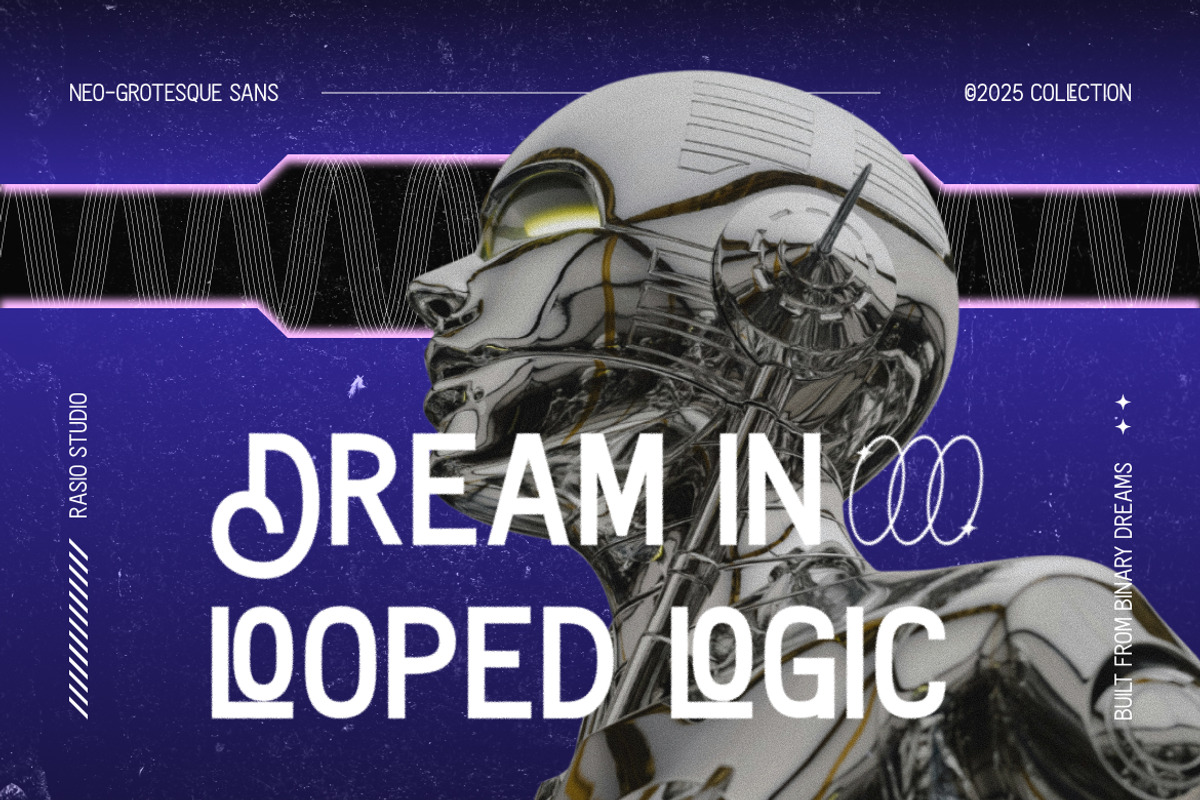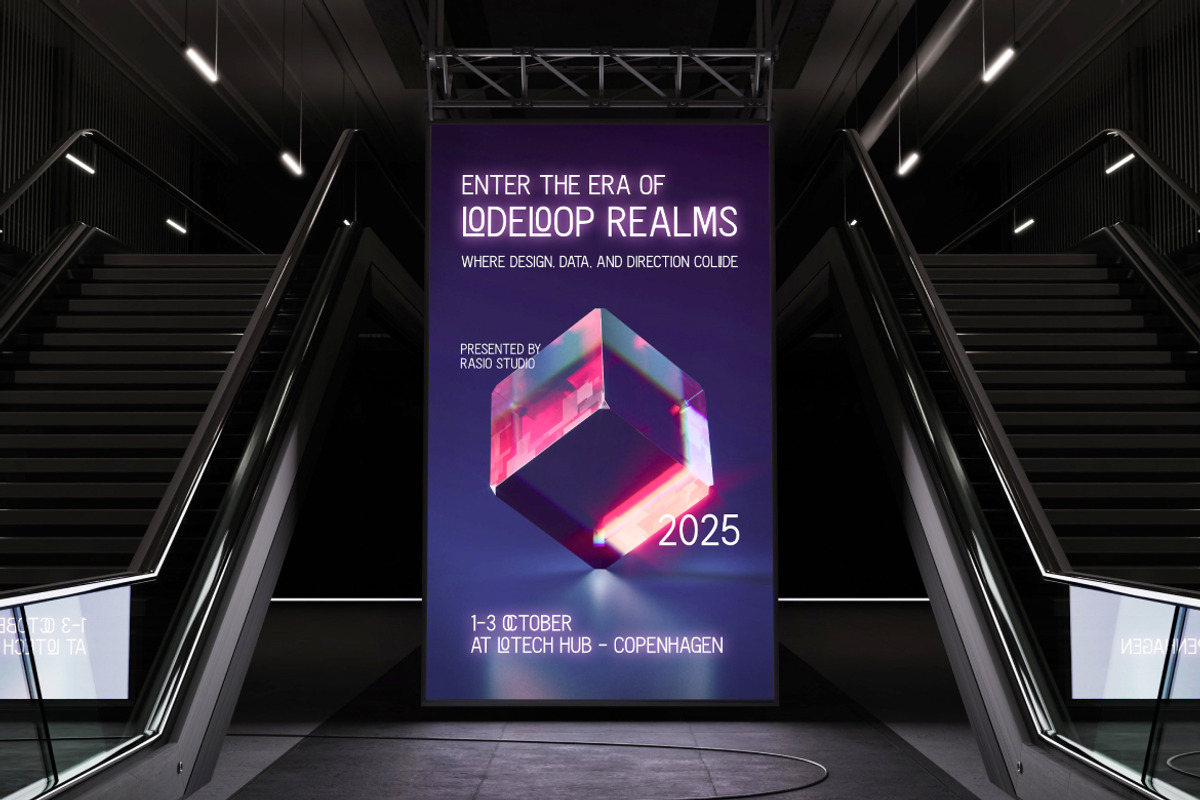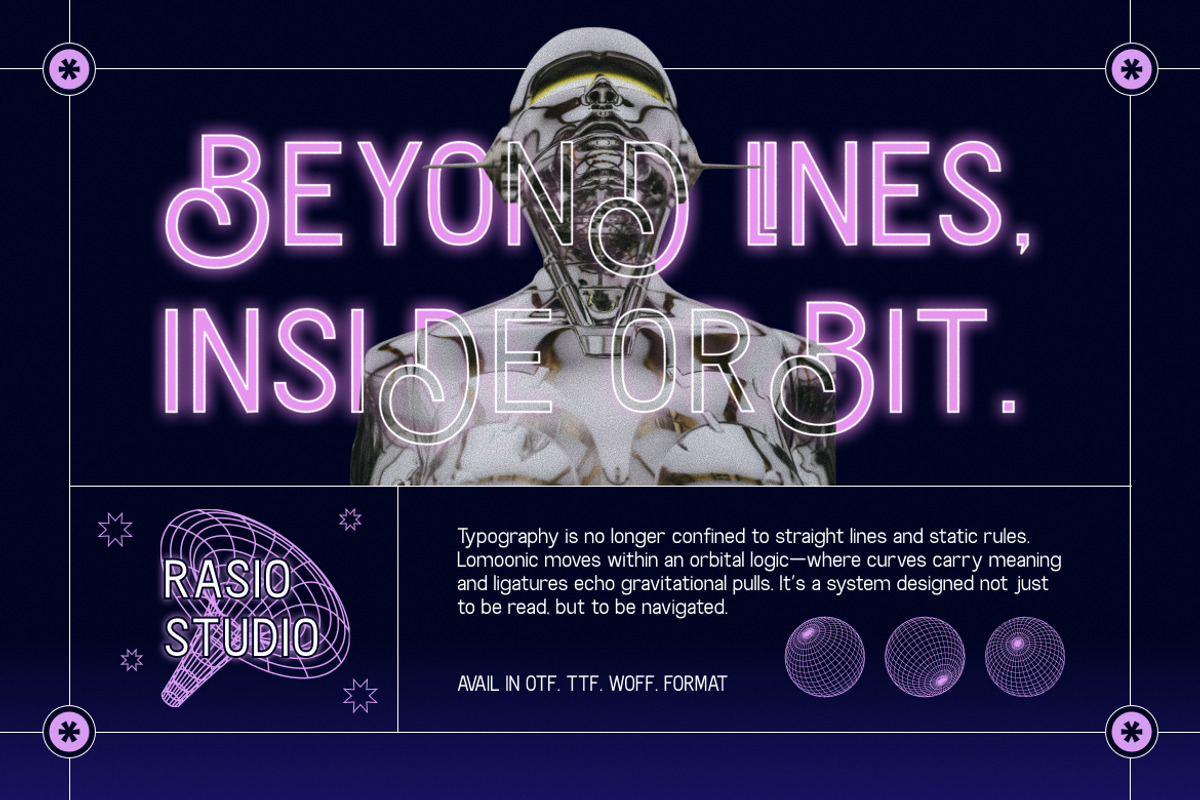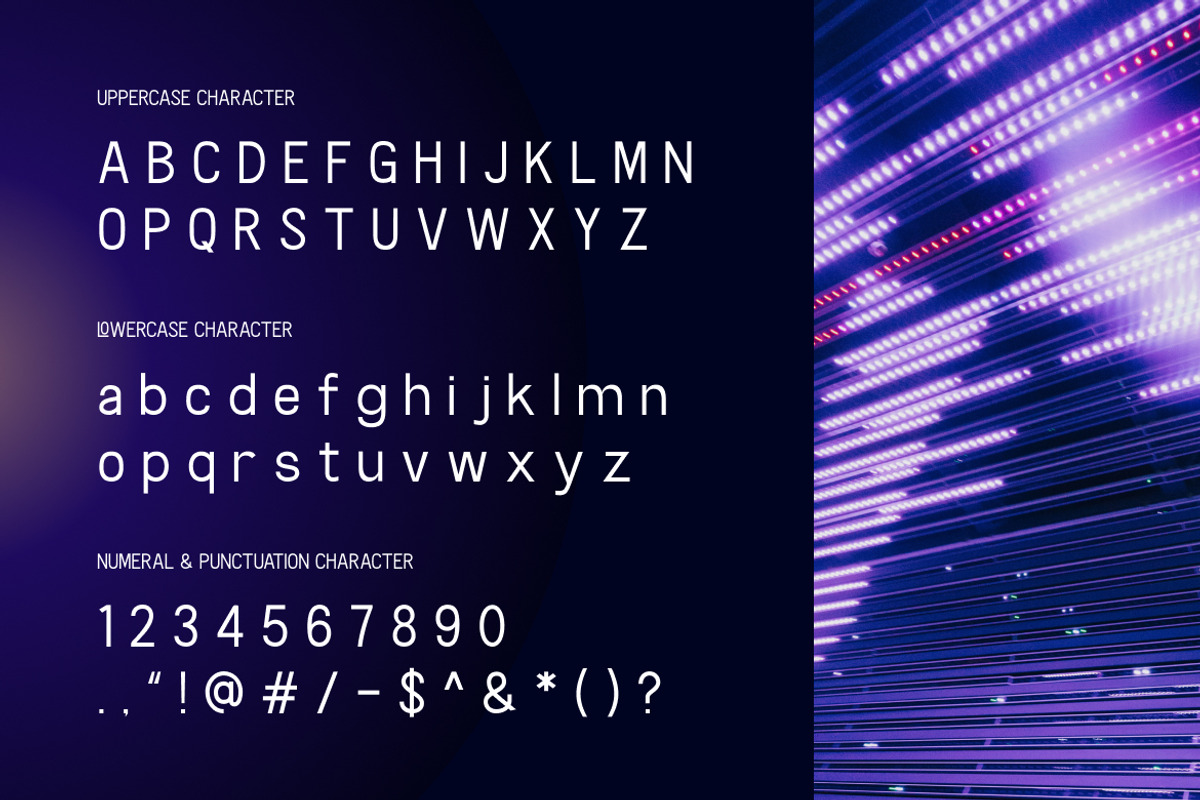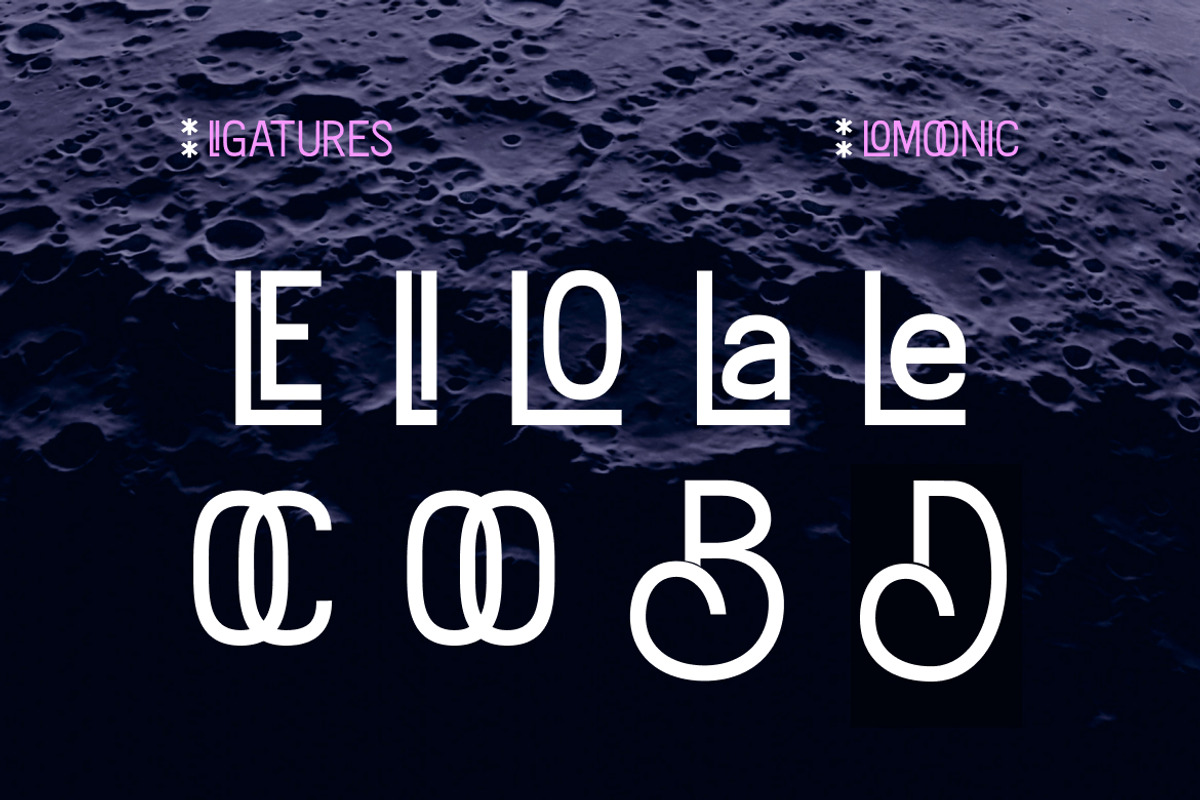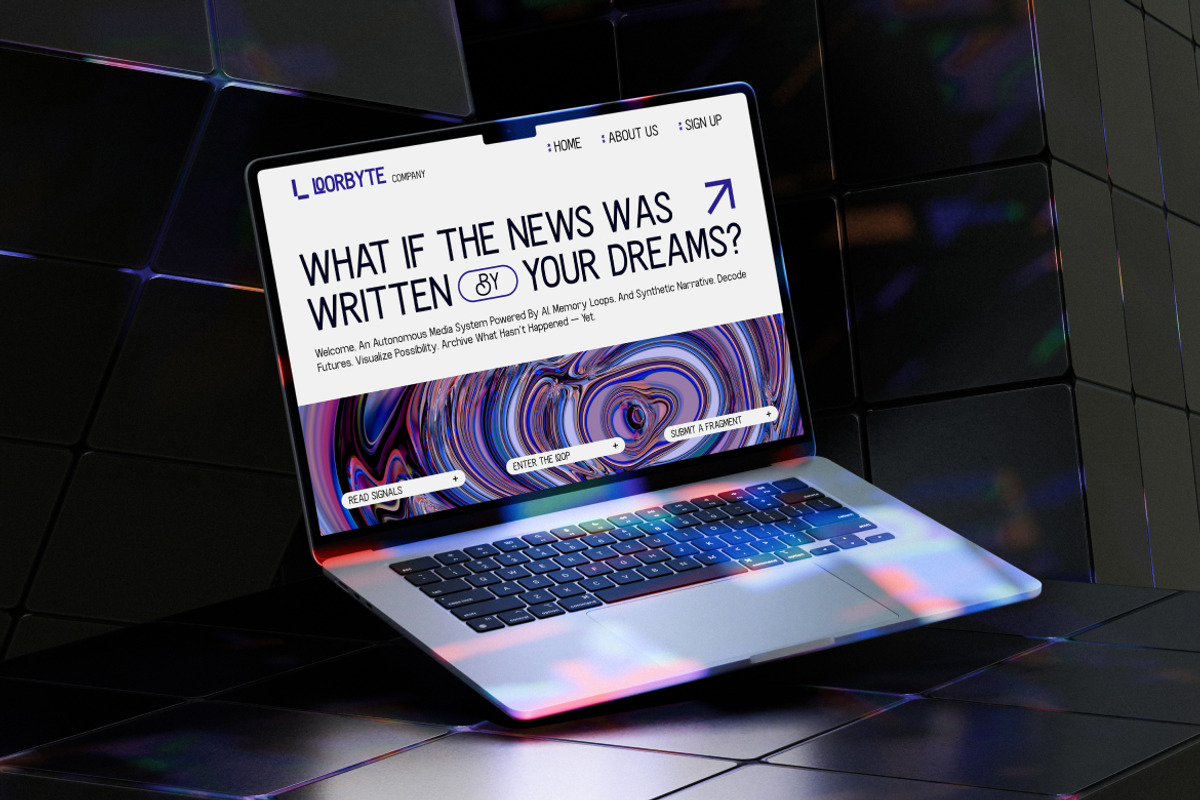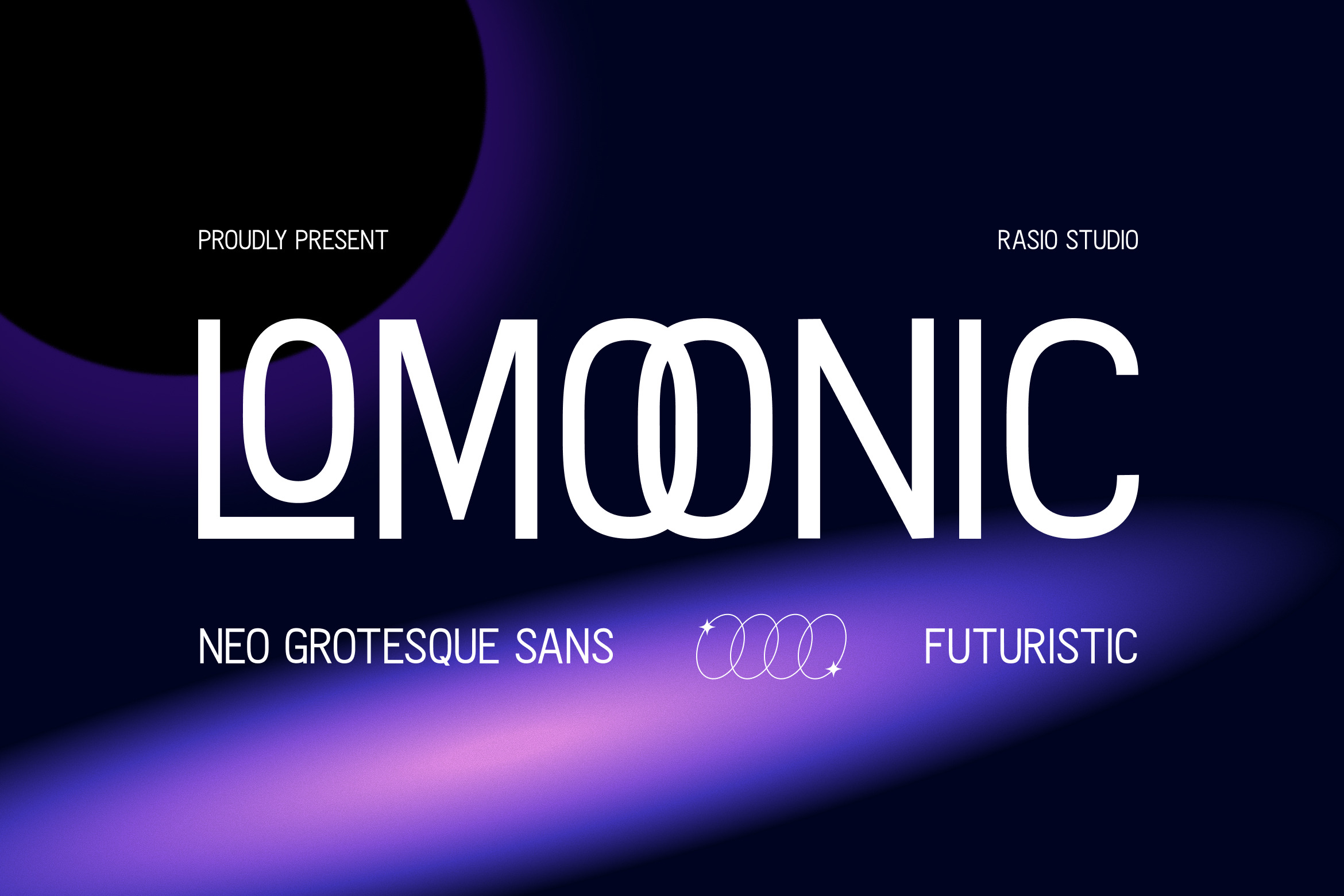
Lomoonic Neo Grotesque Sans Font
Lomoonic is a modern neo‑grotesque sans serif font with sleek proportions and futuristic design accents. Featuring clean, refined strokes and a distinctive looped “oo” motif, this typeface blends contemporary minimalism with expressive details that make it stand out. The family includes uppercase, lowercase, numerals, punctuation, and extended character support. Lomoonic performs beautifully in both large display settings and clean body text, making it suitable for digital and print design alike.
Lomoonic’s refined geometry and subtle futuristic touches make it ideal for designers and brands seeking clean, modern, and expressive typography. It excels in high‑impact headlines, tech branding, digital interfaces, editorial layouts, fashion lookbooks, product packaging, and social media graphics. Its clean lines and geometric balance help elevate minimalist and contemporary designs.
- Neo-grotesque design with a futuristic and minimal aesthetic
- Clean, extended letterforms offering a sleek and modern appearance
- Distinctive double-loop “oo” adds a bold, iconic twist to the typeface
- Subtle geometric precision balanced with generous spacing
- Consistent vertical structure for improved alignment and clarity
- Brand identities that balance modernity with minimalism
- UI/UX designs for futuristic apps, SaaS platforms, and smart tech
- Editorial layouts for trend-forward magazines and lookbooks
- Product packaging with sleek, contemporary appeal
- Social media templates with a clean, innovative edge
Lomoonic, Where futuristic form meets clean typographic function